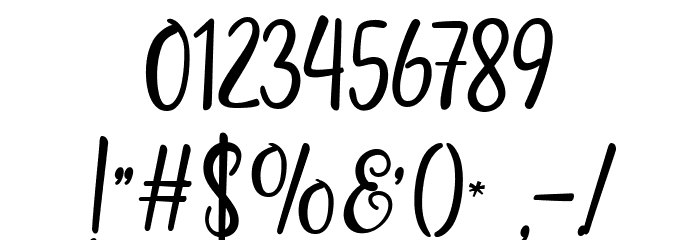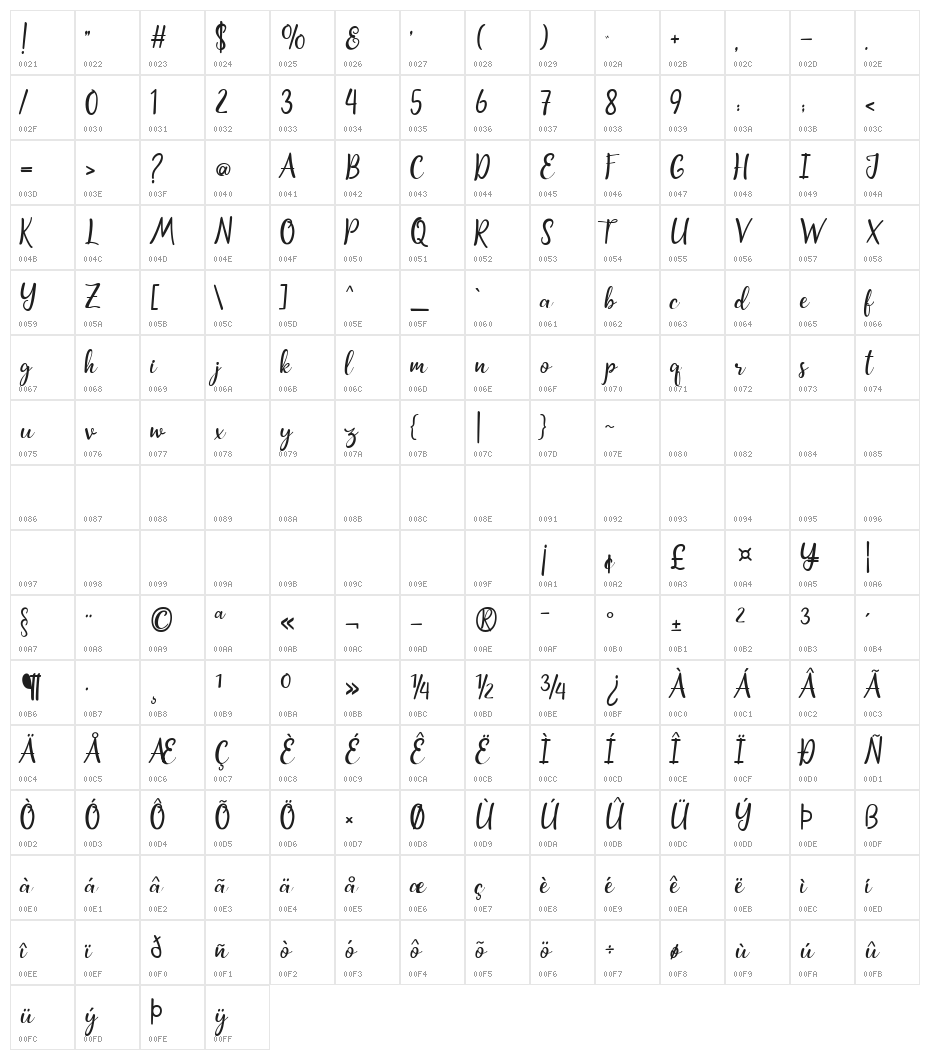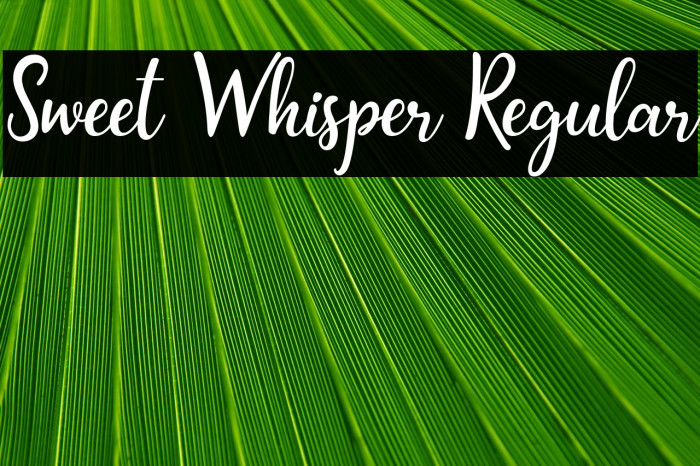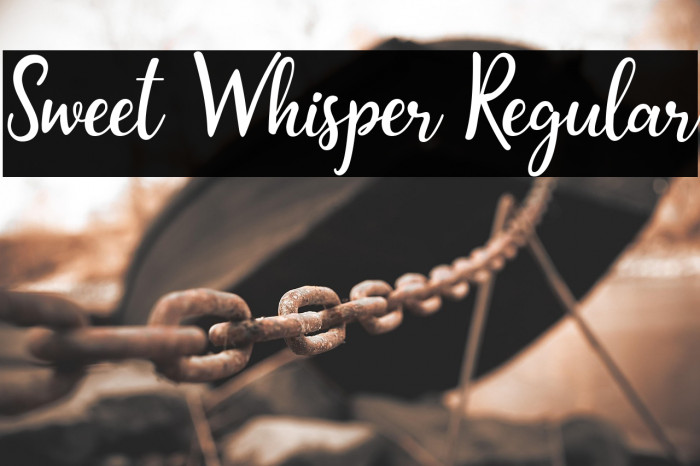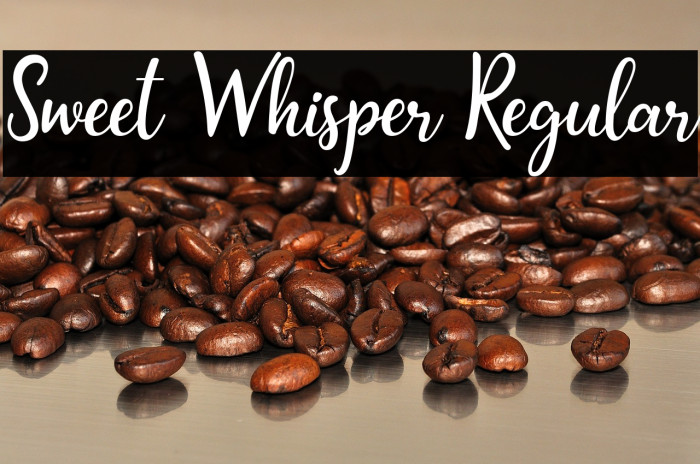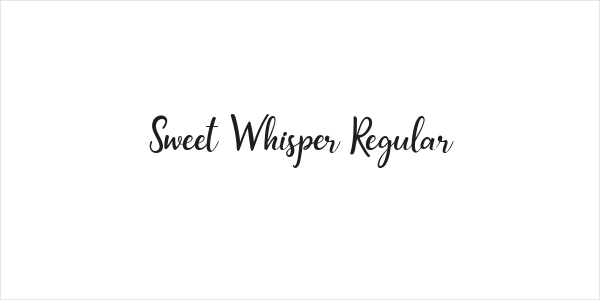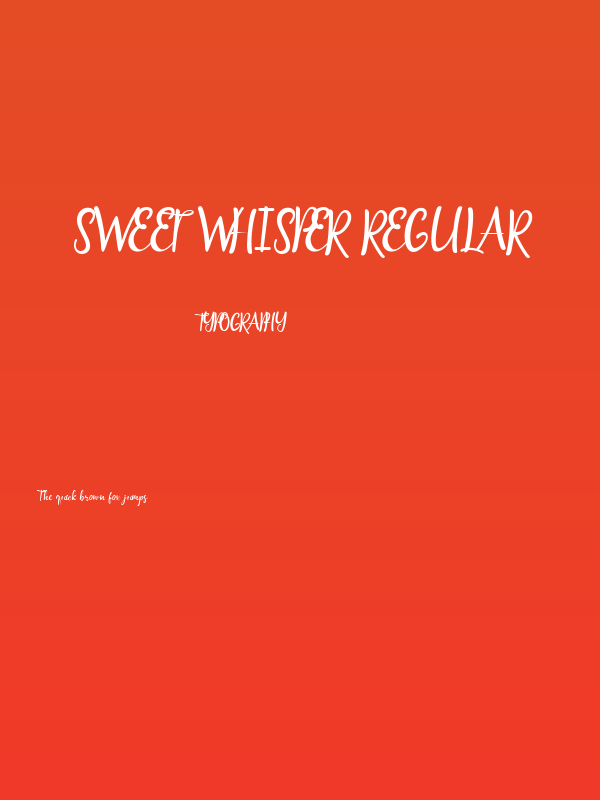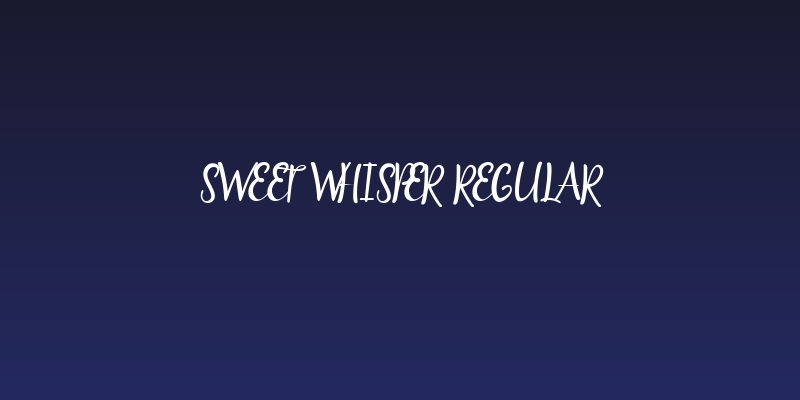
Sweet Whisper Regular Font
Sweet Whisper Regular Description
This font features a lively and expressive script style, characterized by its fluid and dynamic strokes. The uppercase letters are bold and slightly slanted, giving a sense of movement and elegance. The lowercase letters are more delicate, with smooth curves and a handwritten feel. The numerals are consistent with the overall style, maintaining the same flowing aesthetic. Special characters are creatively designed, adding a playful touch to the font. The overall appearance is both modern and whimsical, making it suitable for a variety of creative projects.